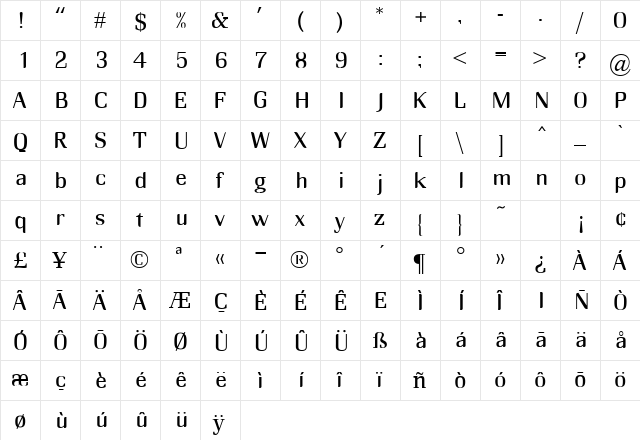
RM_midserif
Design Context for RM_midserif Typeface
RM_midserif carries the refined structure of traditional serif typography, with bracketed terminals and considered proportions that communicate credibility and craft.